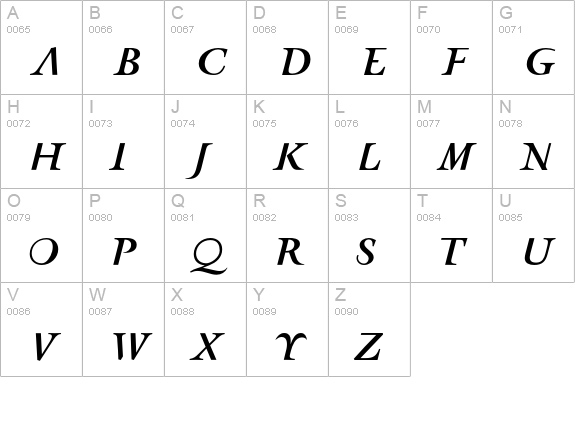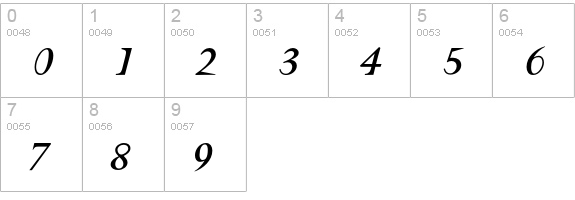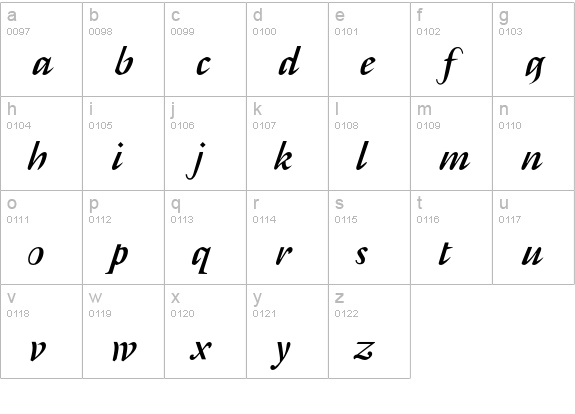
AFRetrospecta-BoldItalic Font Details
Below you can preview AFRetrospecta-BoldItalic in uppercase [A-Z], lowercase [a-z] and numbers [0-9]. You can also read the author's notes and license information before downloading.
AFRetrospecta-BoldItalic is a stunning and versatile font that exudes elegance and sophistication. Its bold yet italic design adds a touch of modernity to any project, making it perfect for a wide range of applications such as branding, advertising, editorial design, and more. The unique blend of retro and contemporary elements in this font makes it stand out from the crowd, capturing attention and leaving a lasting impression. And the best part? AFRetrospecta-BoldItalic is completely free to download at FontsMarket.com. This means you can easily access this premium font without any cost, allowing you to elevate your designs with a touch of class and style. Don't miss out on the opportunity to enhance your creative projects with this exquisite typeface - download AFRetrospecta-BoldItalic today and make a statement with your design work.